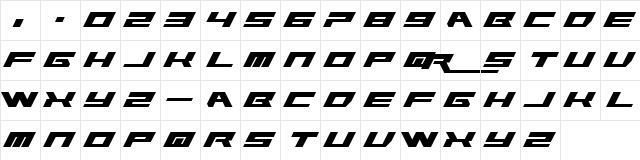
Rawhide Raw 2012 Regular
| Designer | Andrew McCluskey |
Design Context for Rawhide Raw 2012 Typeface
Rawhide Raw 2012 is a composed and adaptable typeface that performs quietly and consistently across a wide range of design contexts.